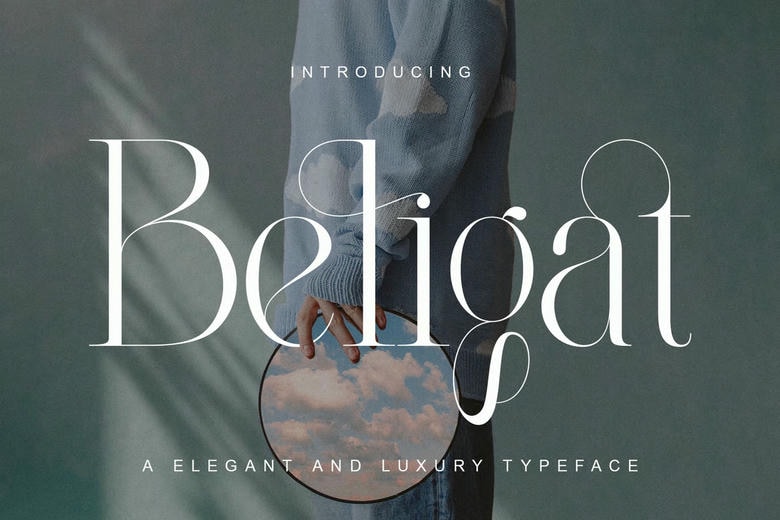
Beligat Font
Beligat is a sophisticated ligature serif modern typeface that reminds about the beauty of fresh flowers and classical face. Beligat is a high-end feminine typeface with its strident, but elegant ligatures. Ideal to be used in the latest of designs, be it florals, fashion or high-end branding, Beligat unites the elegance of the classic serifs with a twist.
There is a mellow and elegant quality to every single letter that makes it a classier and richer addition to any project it is associated with. Beligat brings a hint of high quality and natural elegance to what you do. Allow this font to add a breath of elegance to your designs and observe it adds style and character to them.
Beligat Elegant Ligature Serif Font